Searching for some fantastic spooky, scary or horror themed fonts for your next Canva creation? Then look no further.
I’ve put together a collection of more than 70 Halloween fonts from Canva plus another 27 Canva Halloween font pairings that you can use for your designs.
Whether you’re creating a Halloween poster, a book cover for a horror novel, or some social media content for the spooky season you’re bound to find a few fonts that fit well with your project.
Let’s dive in to it.
Best Halloween Fonts in Canva
Below are some of the best Halloween Canva fonts that I found in Canva. There’s more than 70 spooky, scary, and horror themed fonts in a variety of styles so there should be something for everyone.
If you’re creating some Halloween designs and creations then scroll down and see if you can find a font or two that works for you:
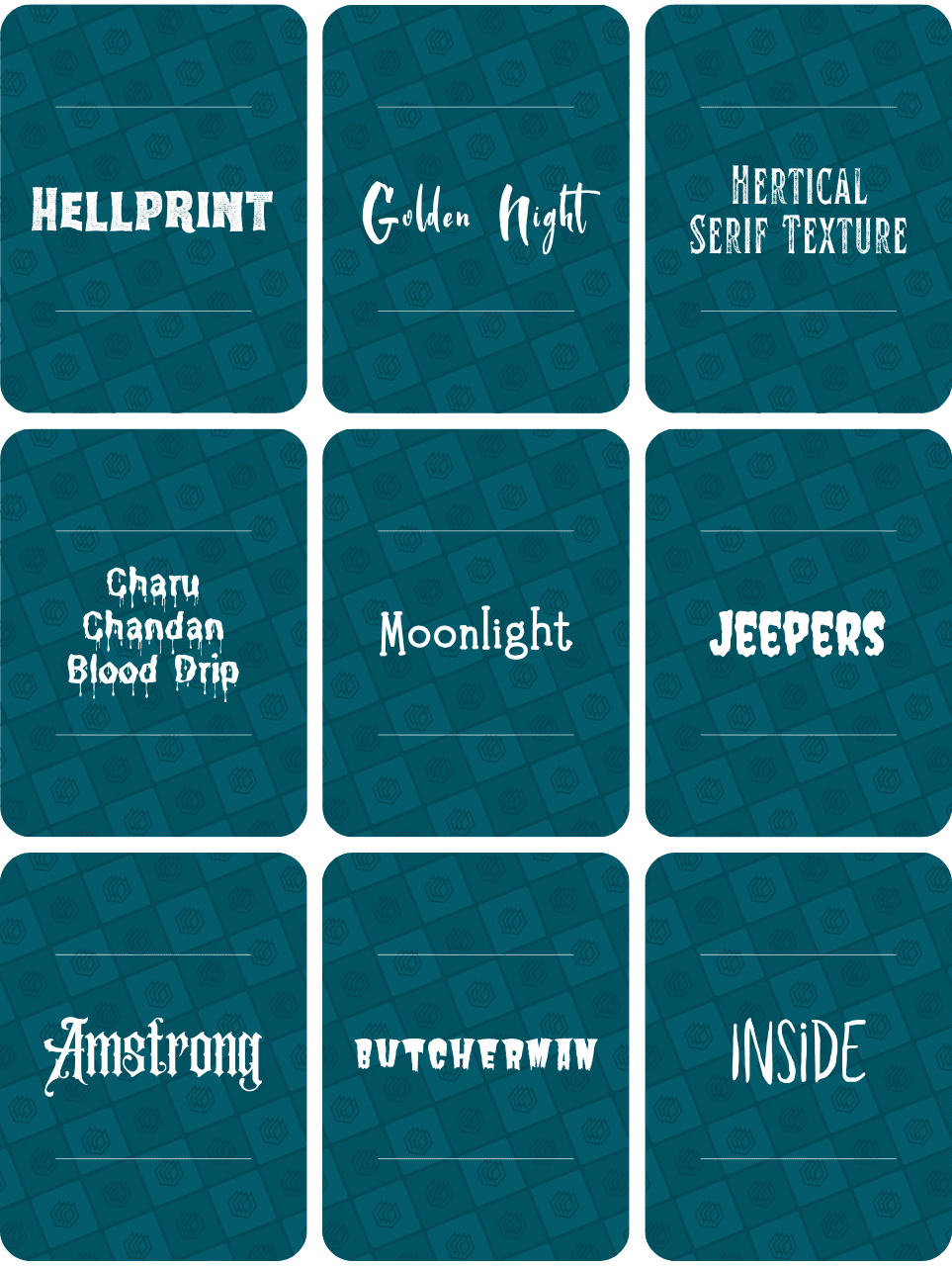
Canva Halloween font list:
- Hellprint (Canva Pro)
- Golden Night (Free)
- Hertical Serif Texture (Free)
- Charu Chandan Blood Drip (Free)
- Moonlight (Free)
- Jeepers (Free)
- Amstrong (Canva Pro)
- Butcherman (Free)
- Inside (Canva Pro)
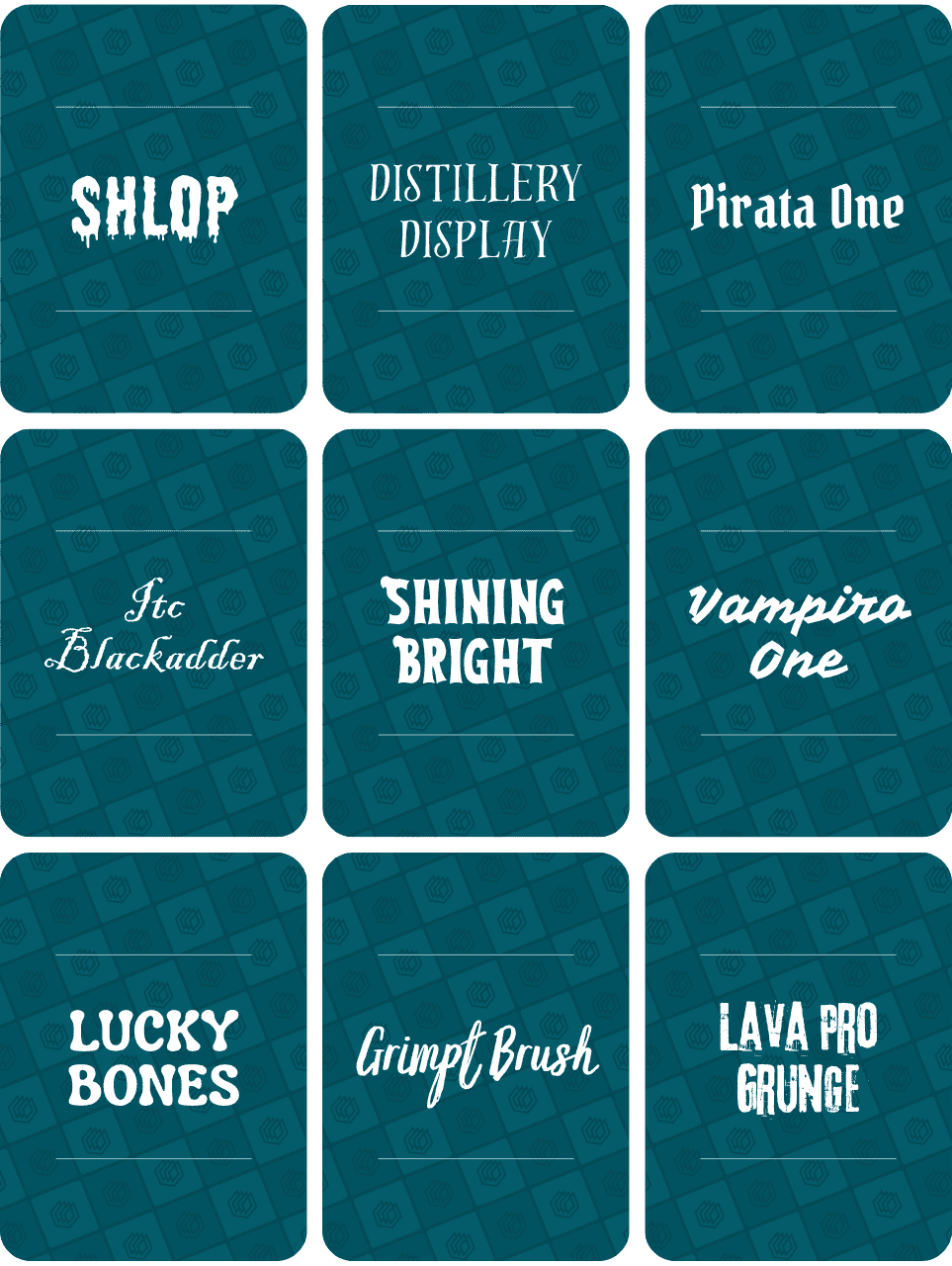
Canva Halloween font list:
- Shlop (Free)
- Distillery Display (Free)
- Pirata One (Free)
- ITC Blackadder (Free)
- Shining Bright (Canva Pro)
- Vampiro One (Free)
- Lucky Bones (Free)
- Grimpt Brush (Canva Pro)
- Lava Pro Grunge (Free)
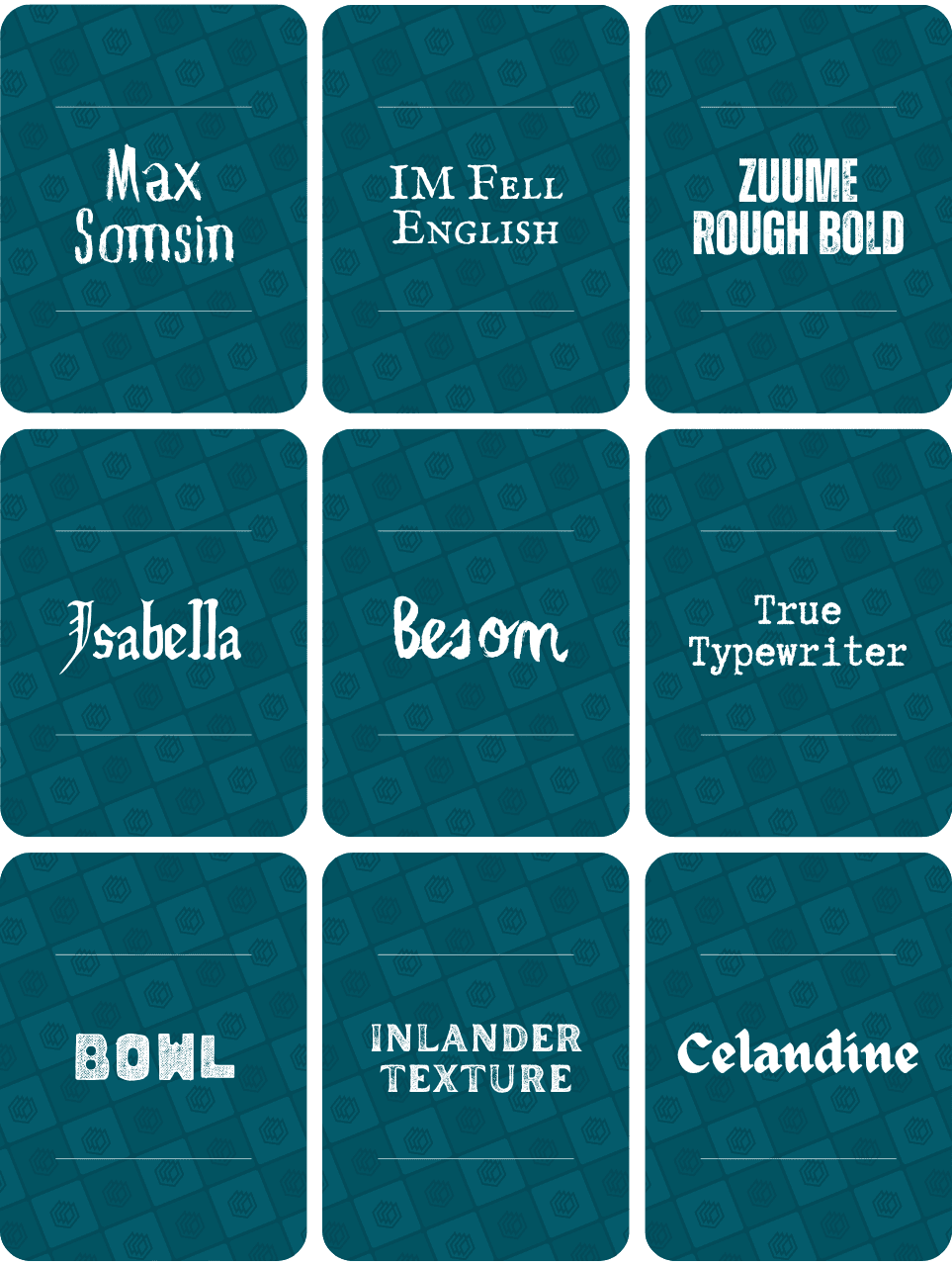
Canva Halloween font list:
- Max Somsin (Free)
- IM Fell English SC (Free)
- Zuume Rough Bold (Free)
- Isabella (Free)
- Besom (Free)
- True Typewriter (Free)
- Bowl (Canva Pro)
- Inlander Texture (Free)
- Celandine (Free)
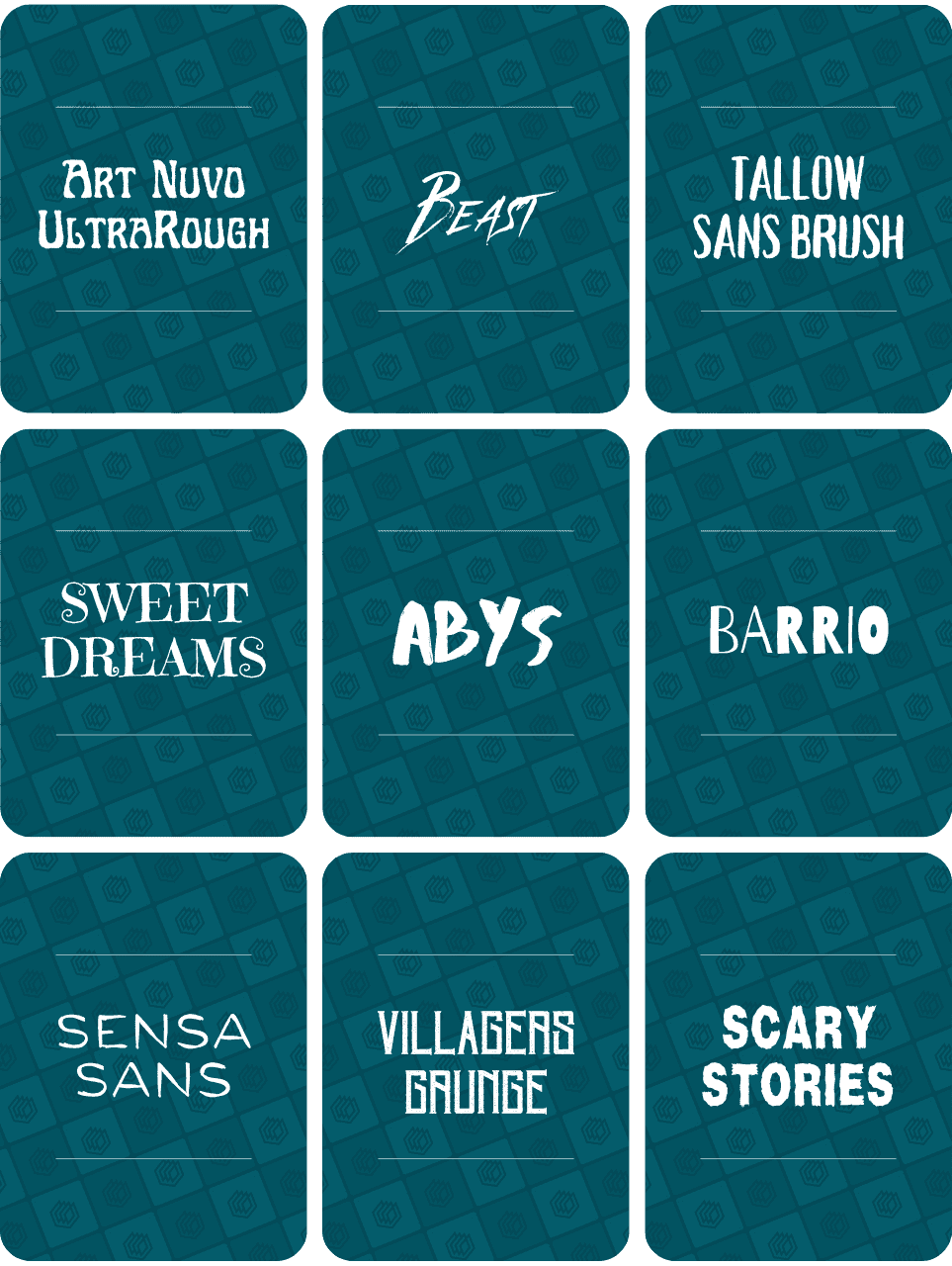
Canva Halloween font list:
- Art Nuvo UltraRough (Free)
- Beast (Canva Pro)
- Tallow Sans Brush (Free)
- Sweet Dreams (Free)
- Abys (Free)
- Barrio (Free)
- Sensa Sans (Canva Pro)
- Villagers Grunge (Free)
- Scary Stories (Canva Pro)
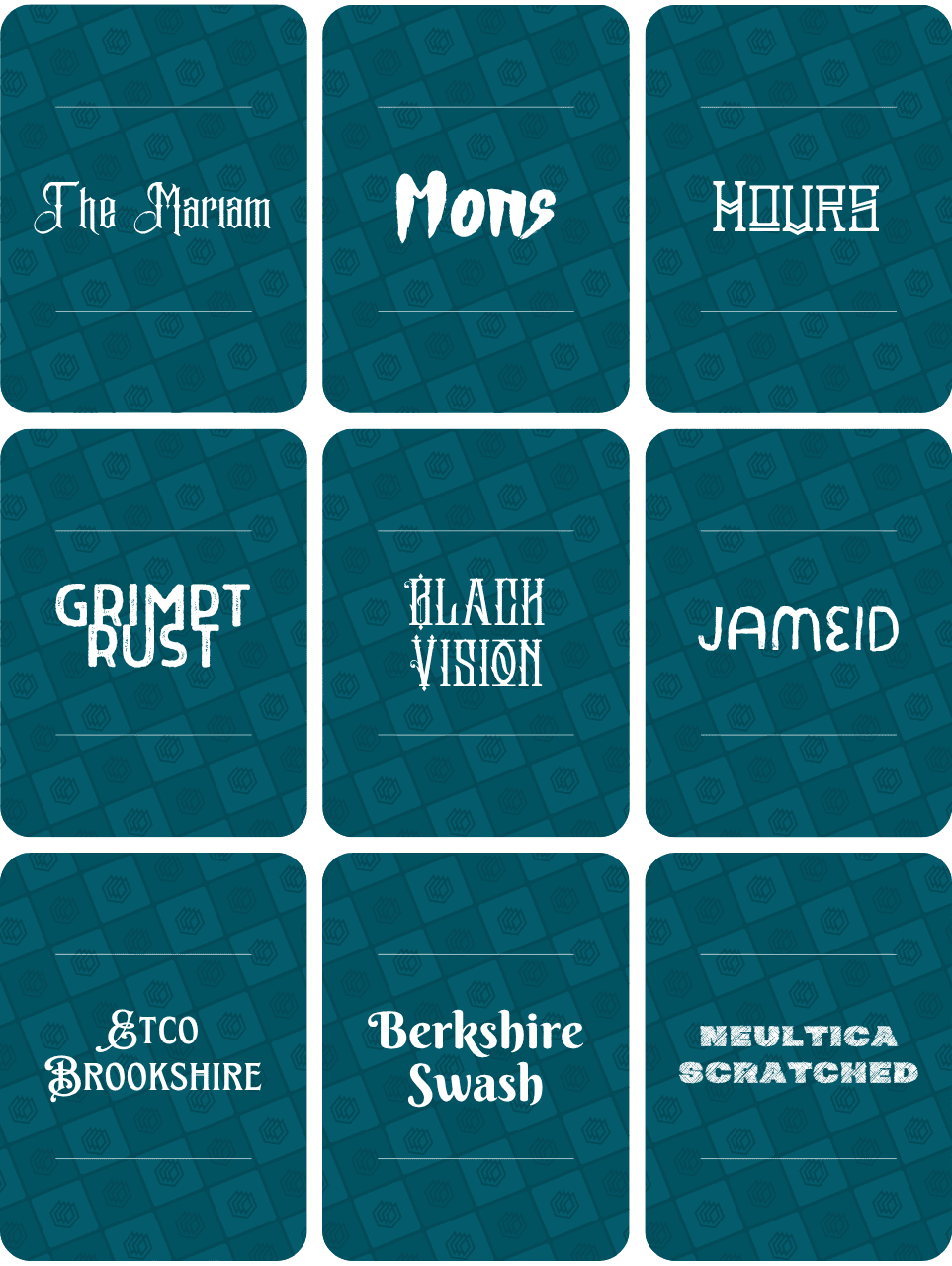
Canva Halloween font list:
- The Mariam (Canva Pro)
- Mons (Canva Pro)
- Hours (Free)
- Grimpt Rust (Canva Pro)
- Black Vision (Canva Pro)
- Jameid (Canva Pro)
- ETCO Brookshire (Free)
- Berkshire Swash (Free)
- Neultica Scratched (Canva Pro)
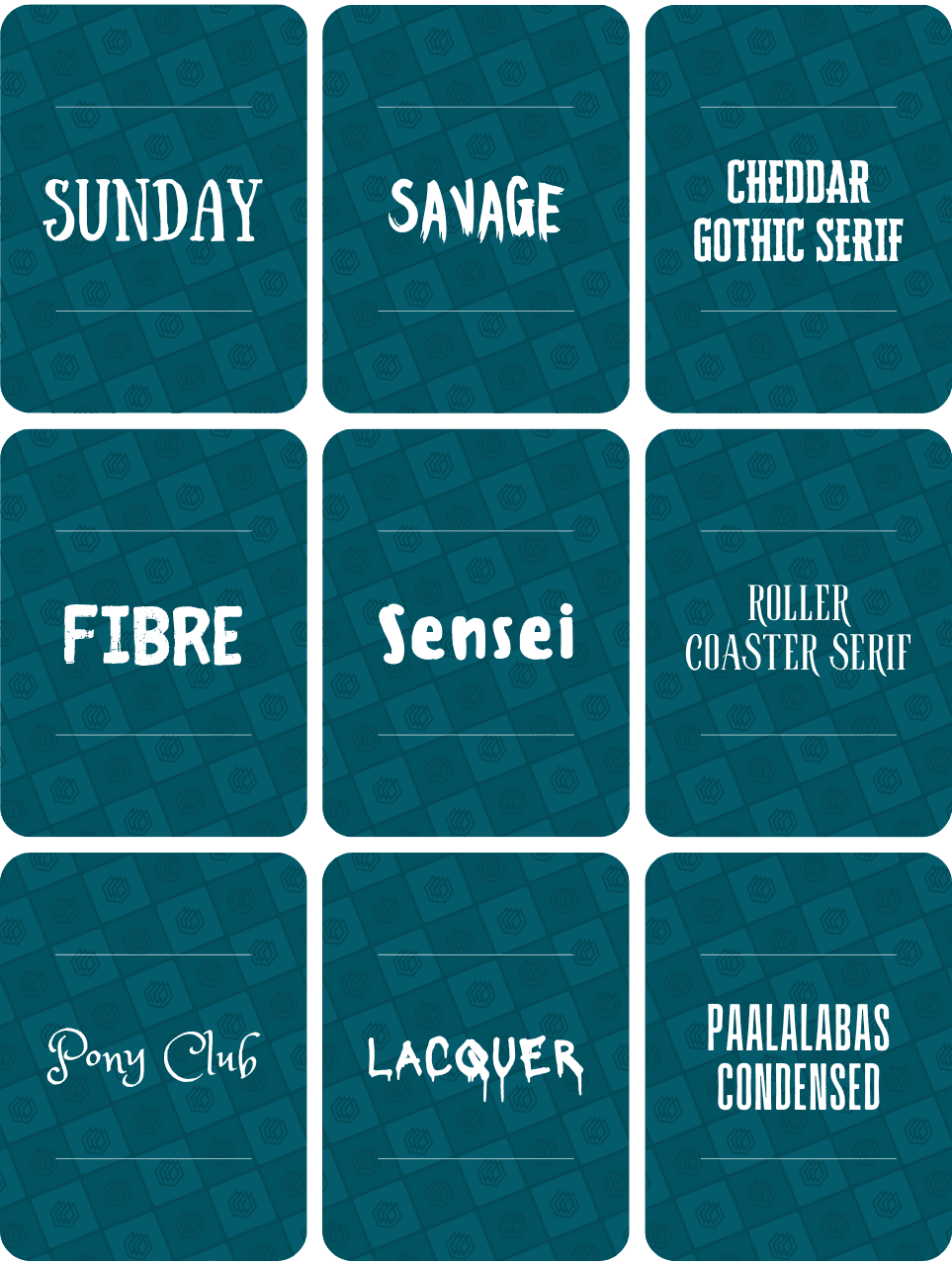
Canva Halloween font list:
- Sunday (Free)
- Savage (Free)
- Cheddar Gothic Serif (Canva Pro)
- Fibre (Free)
- Sensei (Free)
- Roller Coaster Serif (Free)
- Pony Club (Free)
- Lacquer (Free)
- Paalalabas Condensed (Free)
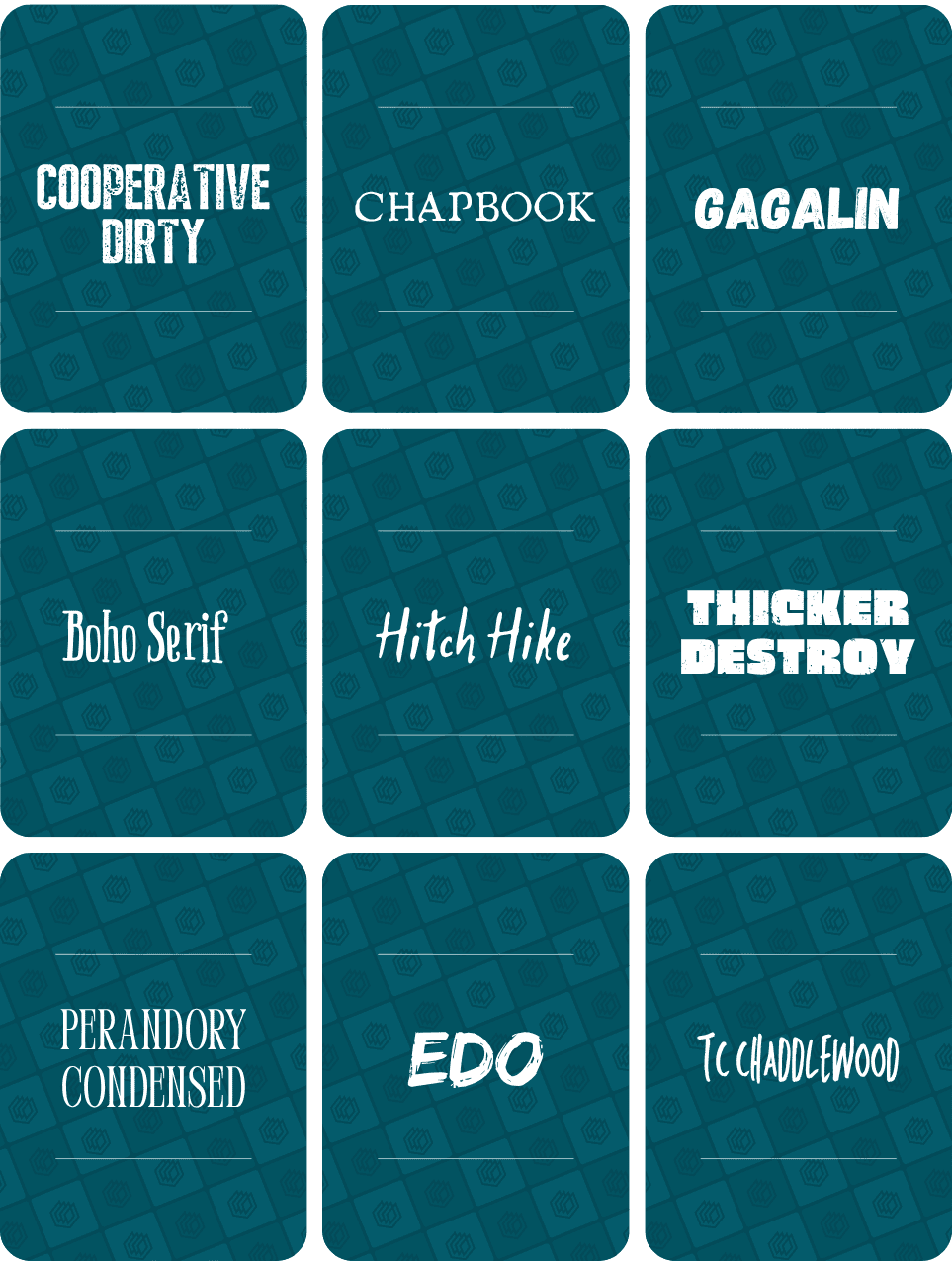
Canva Halloween font list:
- Cooperative Dirty (Canva Pro)
- Chapbook (Free)
- Gagalin (Free)
- Boho Serif (Free)
- Hitch Hike (Free)
- Thicker Destroy (Free)
- Perandory Condensed (Free)
- Edo (Free)
- TC Chaddlewood (Free)
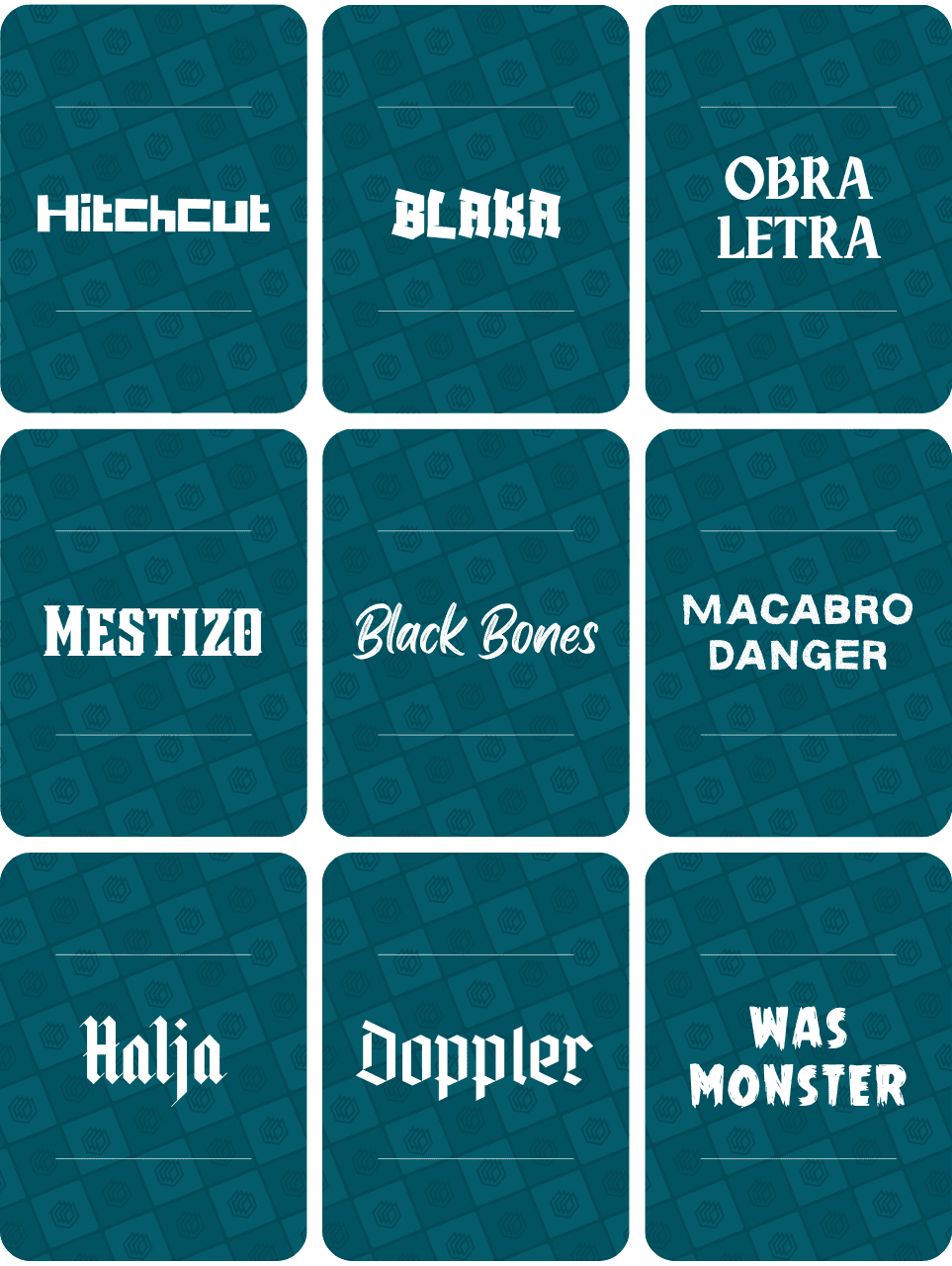
Canva Halloween font list:
- Hitchcut (Free)
- Blaka (Free)
- Obra Letra (Free)
- Mestizo (Free)
- Black Bones (Free)
- Macabro Danger (Canva Pro)
- Halja (Free)
- Doppler (Free)
- Was Monster (Free)
Halloween Font Combinations in Canva
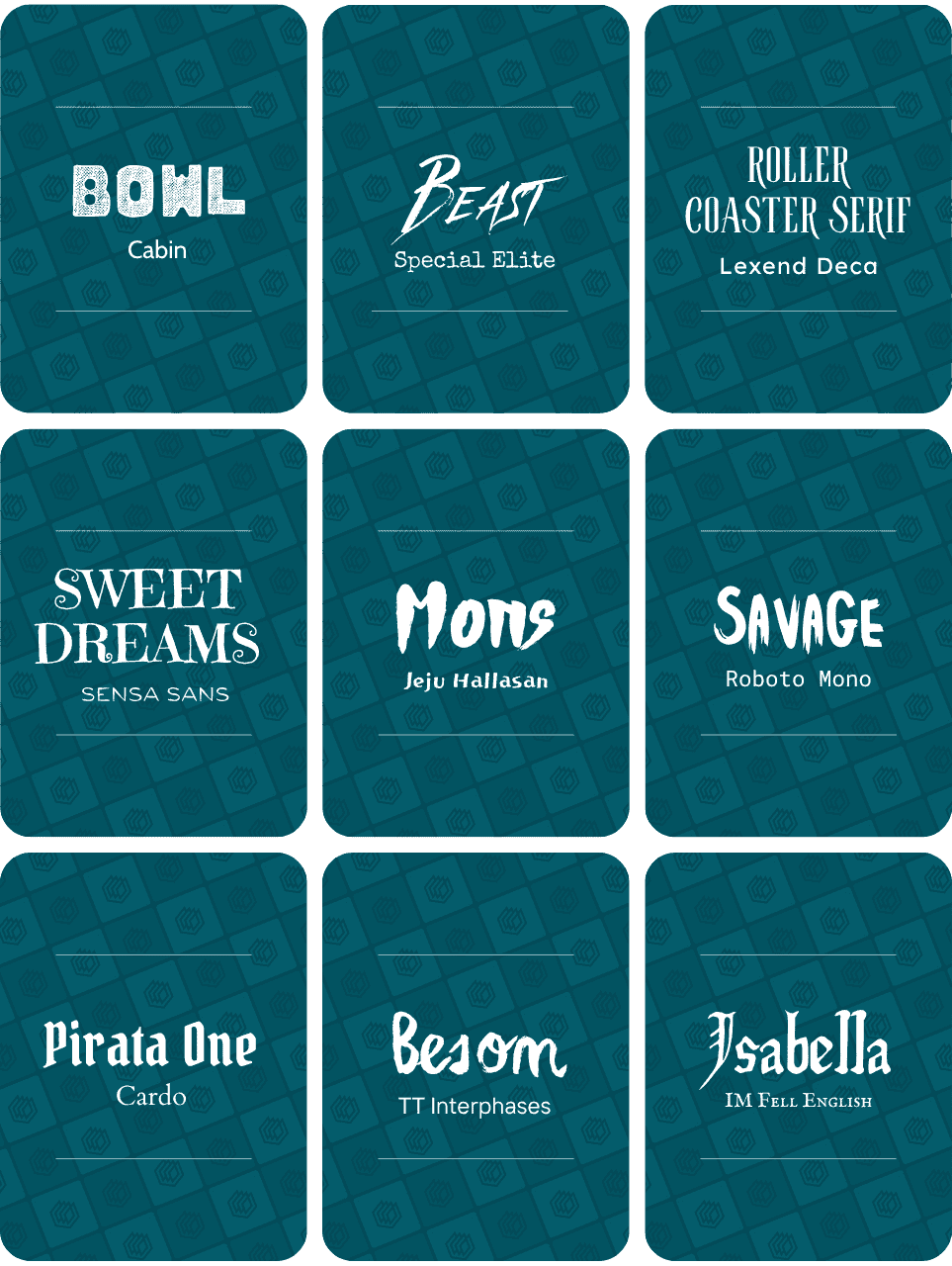
Canva Halloween font pairings:
- Bowl + Cabin (Pro + Free)
- Beast + Special Elite (Pro + Free)
- Roller Coaster Serif + Lexend Deca (Free + Free)
- Sweet Dreams + Sensa Sans (Free + Pro)
- Mons + Jeju Hallasan (Pro + Free)
- Savage + Roboto Mono (Free + Free)
- Pirata One + Cardo (Free + Free)
- Besom + TT Interphases (Free + Free)
- Isabella + IM Fell English (Free + Free)
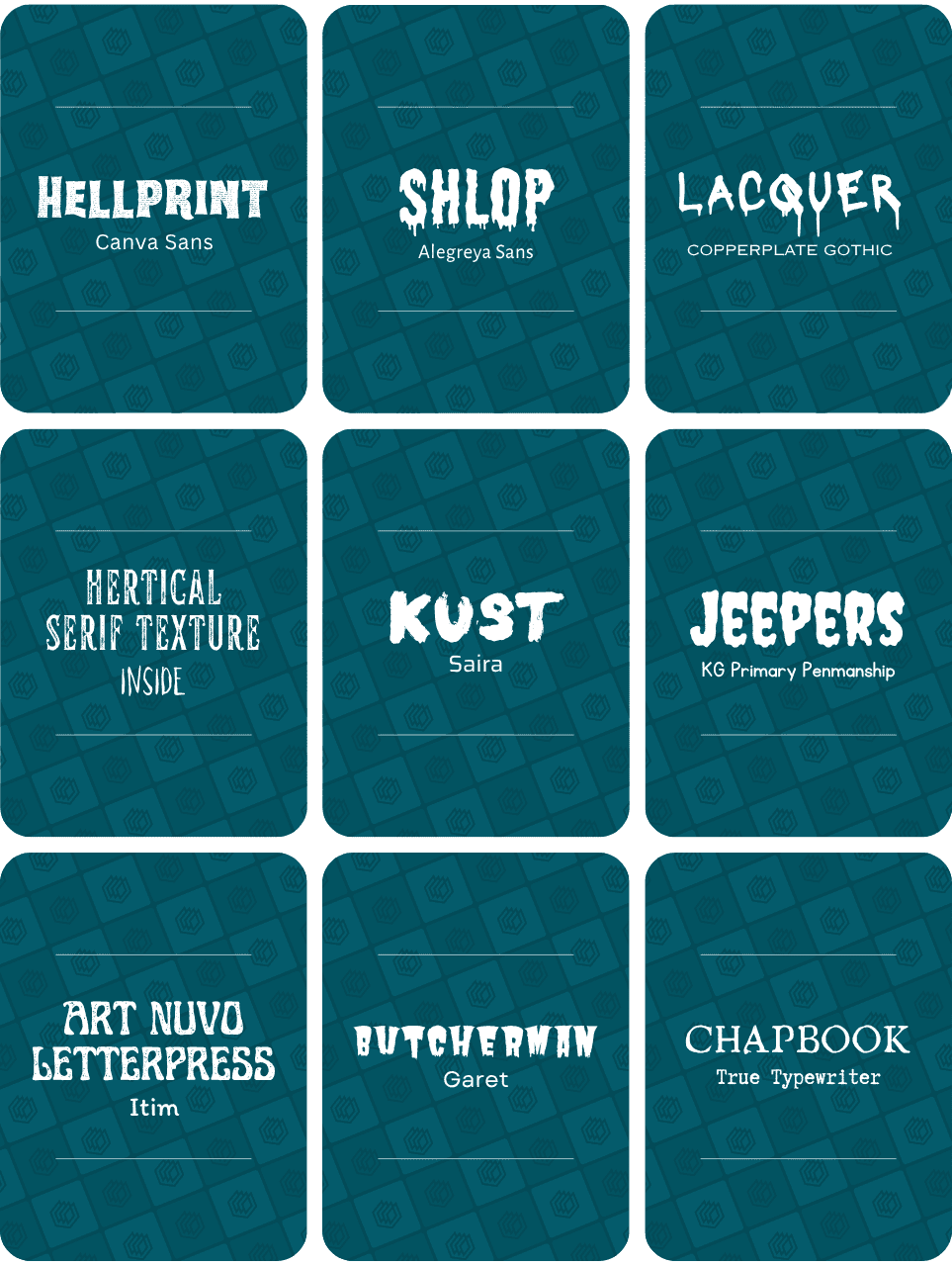
Canva Halloween font pairings:
- Hellprint + Canva Sans (Pro + Free)
- Shlop + Alegreya Sans (Free + Free)
- Lacquer + Copperplate Gothic (Free + Free)
- Hertical Serif Texture + Inside (Free + Pro)
- Kust + Saira (Free + Free)
- Jeepers + KG Primary Penmanship (Free + Free)
- Art Nuvo Letterpress + Itim (Free + Free)
- Butcherman + Garet (Free + Free)
- Chapbook + True Typewriter (Free + Free)
Canva Halloween font pairings:
- Drunken Hour + Archivo Narrow (Free + Free)
- Golden Night + Boho Sans (Free + Free)
- Thicker Destroy + Decalotype (Free + Free)
Final thoughts
There you have it, 70+ Halloween fonts (and some font combinations too) that you can use for your new designs in Canva. Plenty to sink your teeth into and make your designs shock and delight this spooky season.